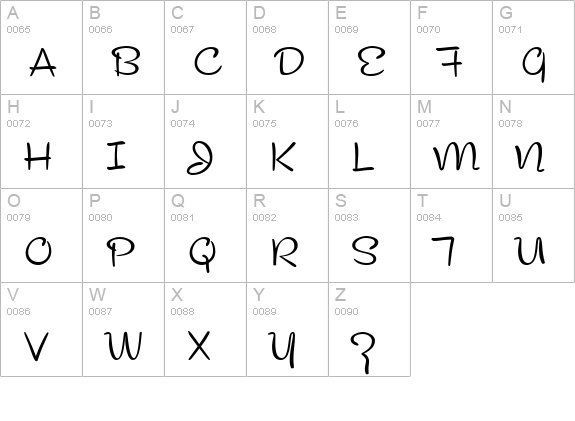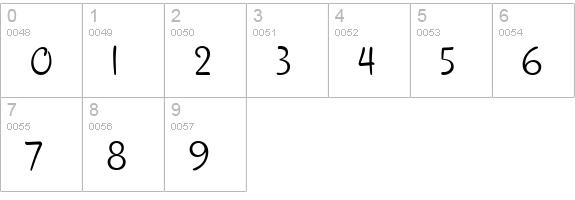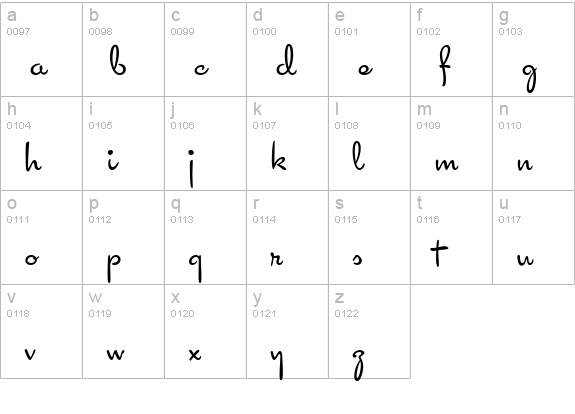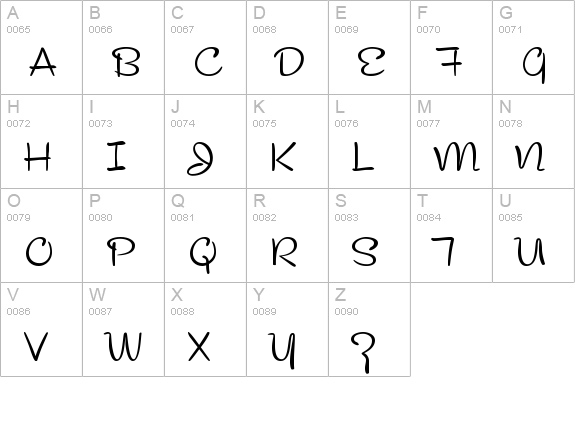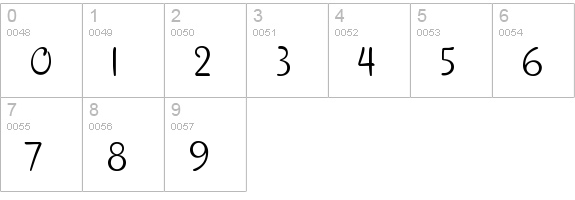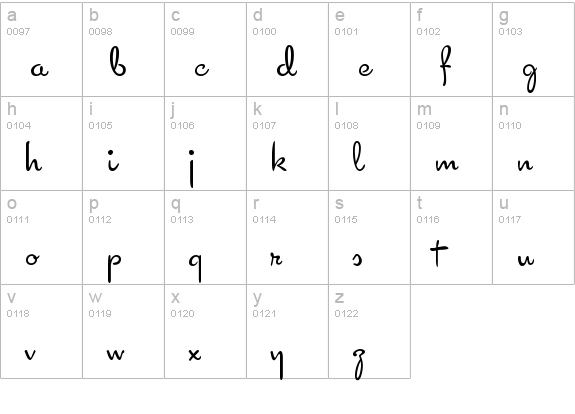
Cocktail Script font is a stunning and elegant typeface perfect for adding a touch of sophistication to your designs. With its flowing and graceful curves, this font exudes a sense of style and charm. Whether you're designing invitations, logos, or branding materials, Cocktail Script font will elevate your work to the next level. The best part? Cocktail Script font is completely free to download at FontsMarket.com. You can easily access this beautiful font and use it in your projects without any cost. Embrace the beauty and elegance of Cocktail Script font in your designs today!